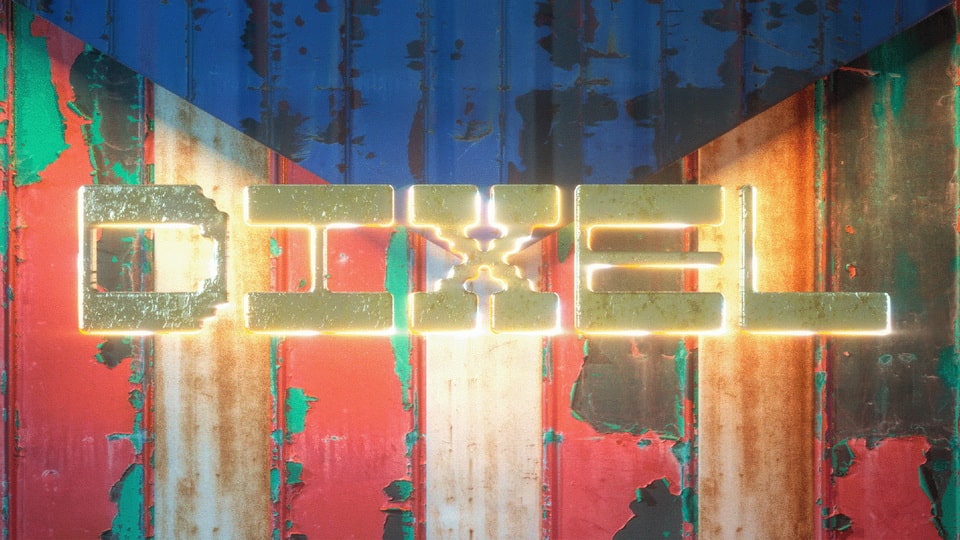
Download Dixel font, a display typeface inspired by Cyberpunk 2077’s gun “Divided We Stand”. Dixel font is bold and extremely stable, which makes it an excellent choice for posters, headlines, games, web and other display use.